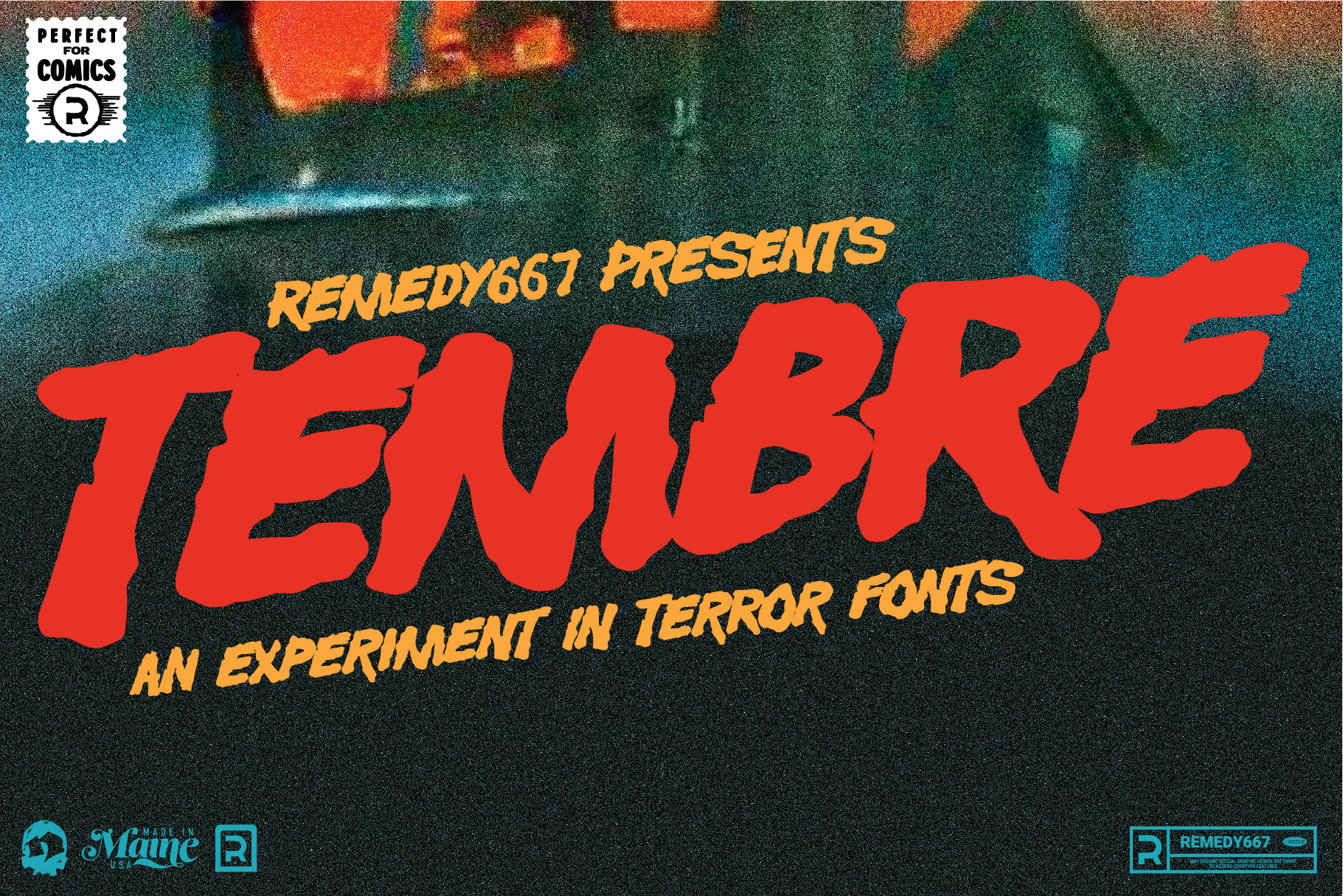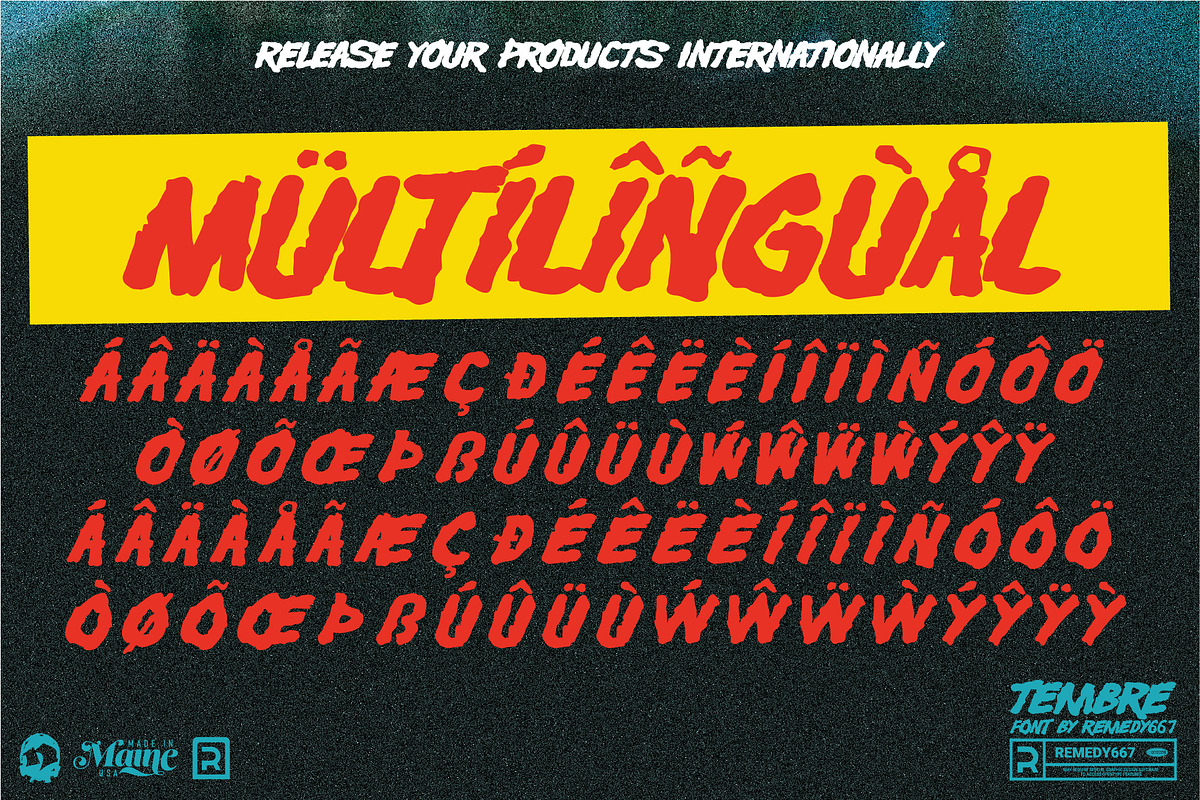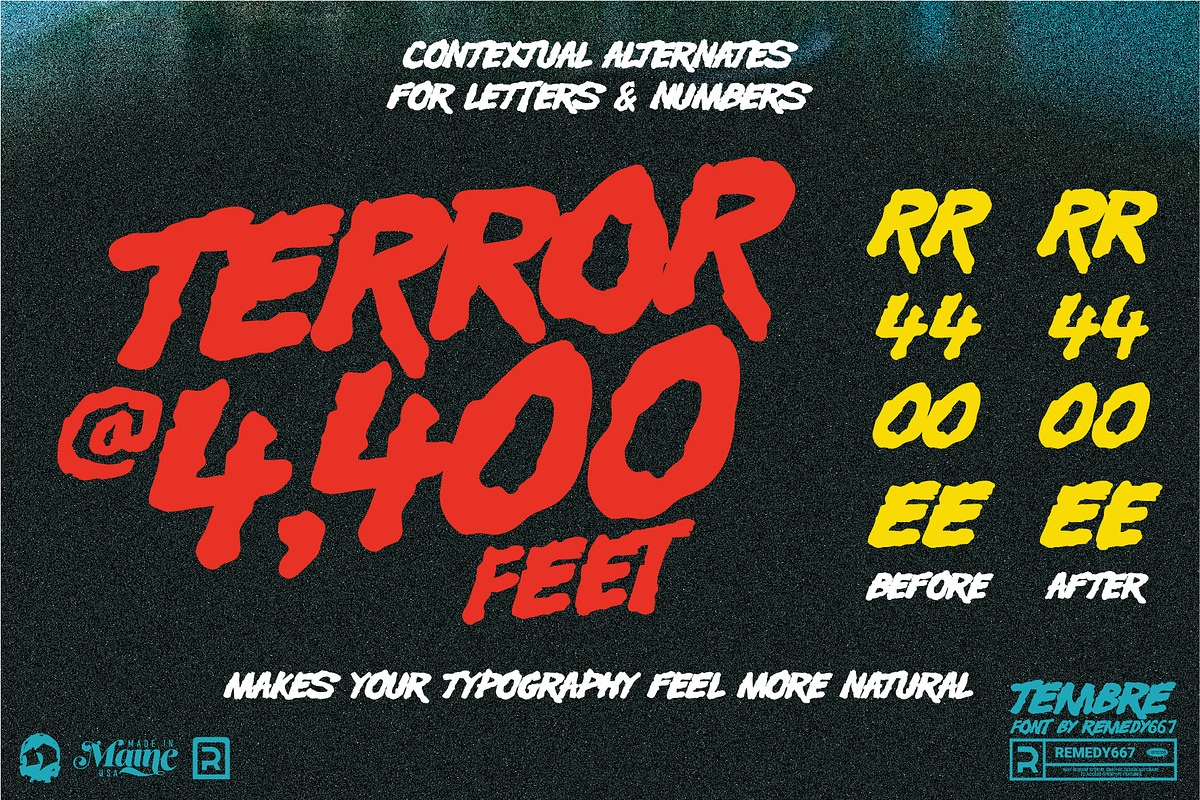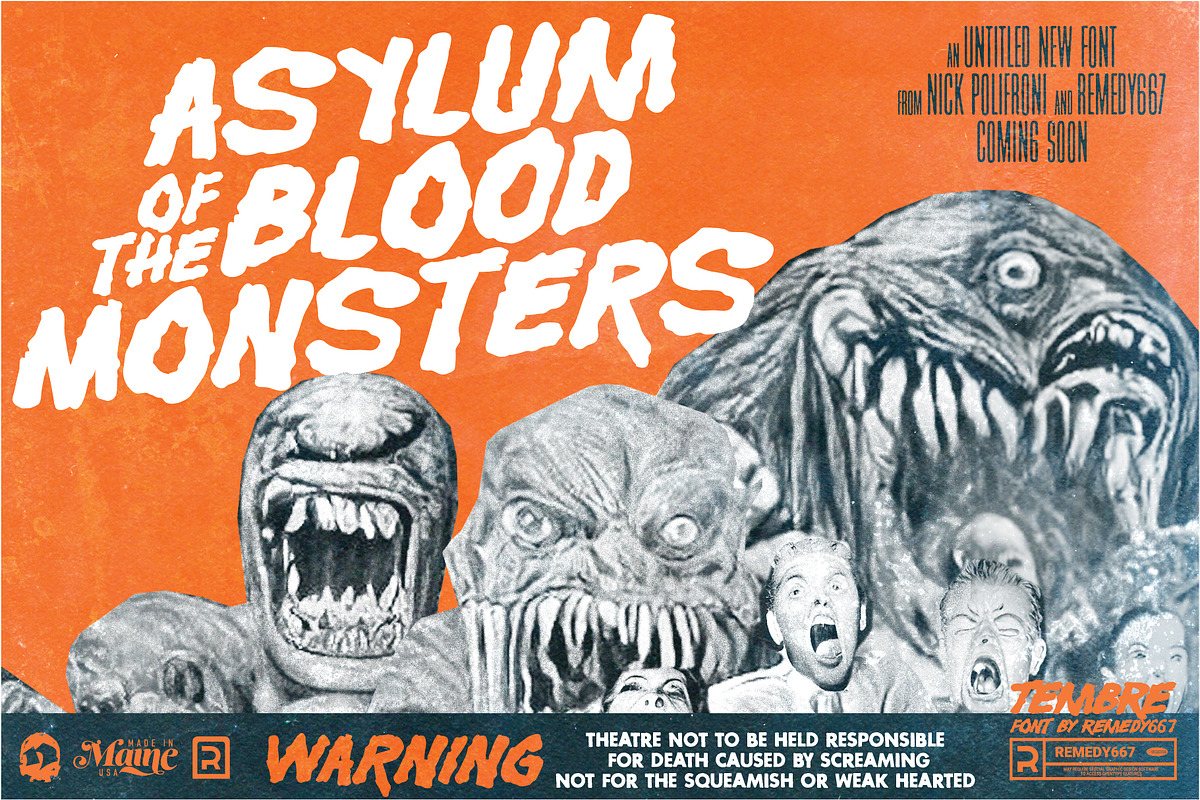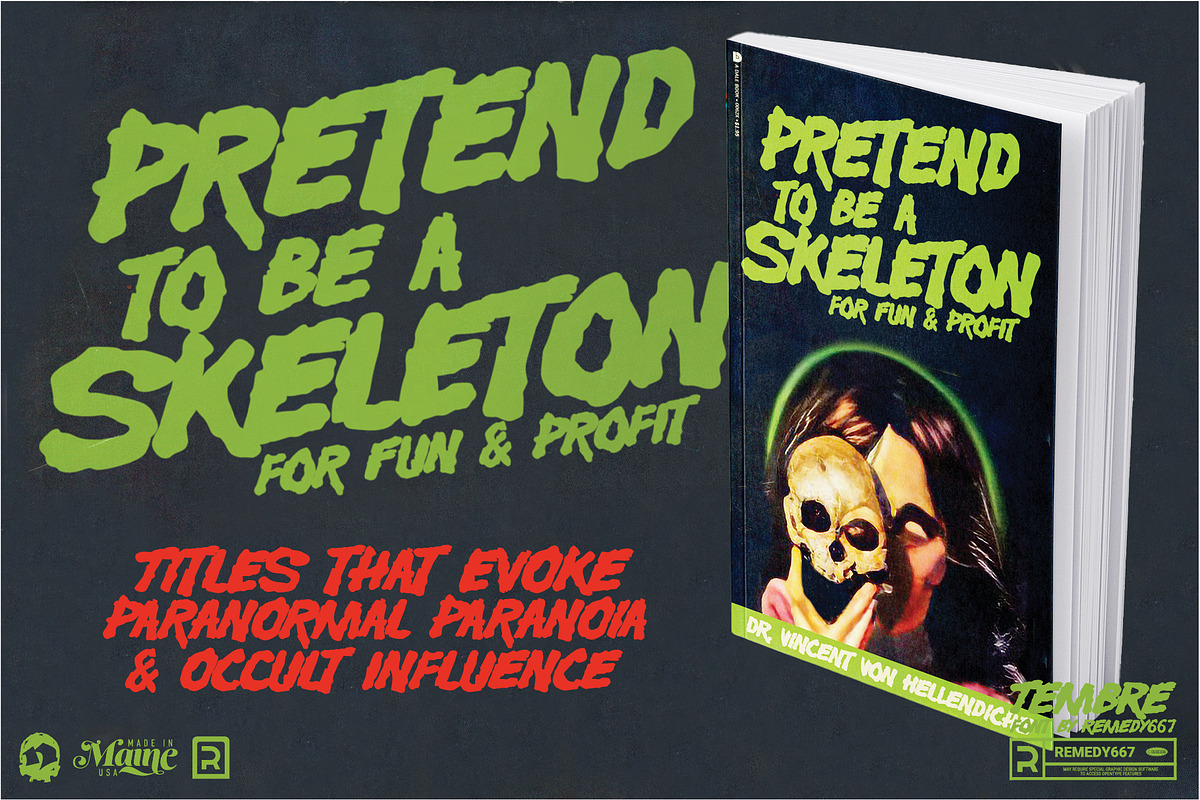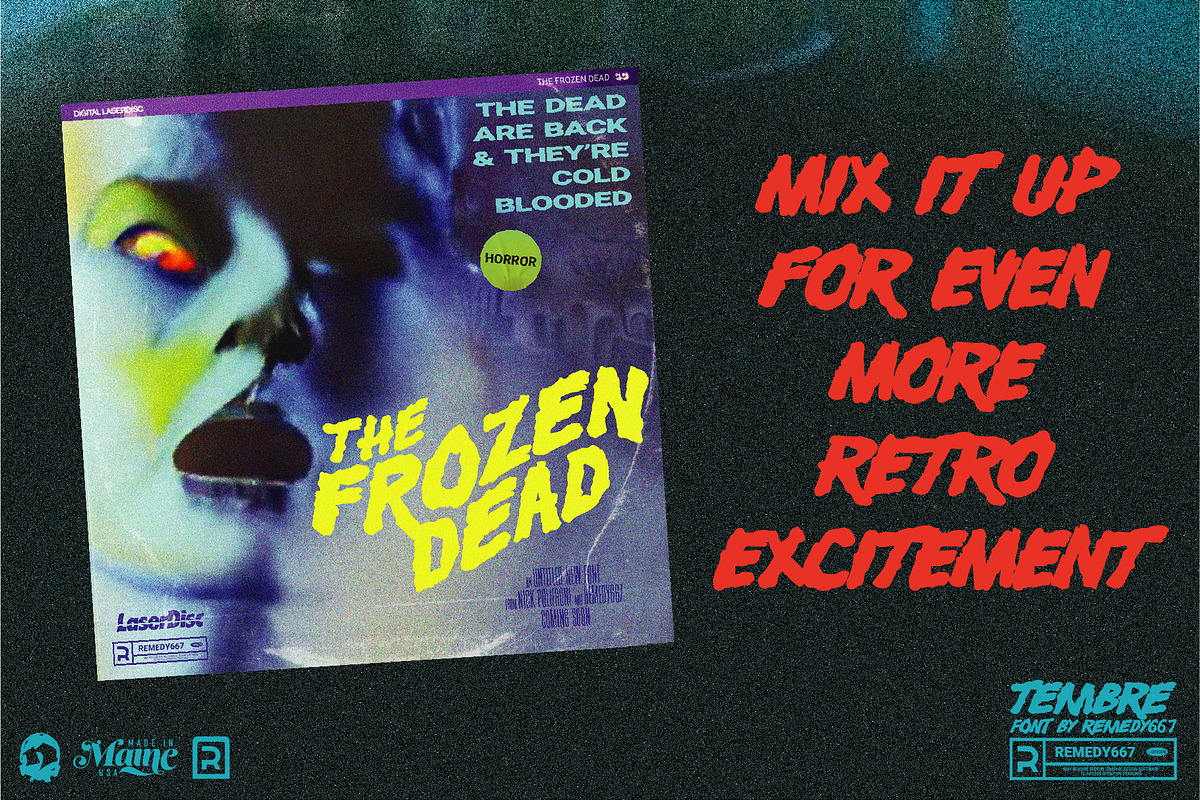
Tembre - Retro Horror Font
No other font has the perfect look and feel for horror titles like Tembre. We all know the feeling of reading a horror title in a creepy font and it just sends shivers down your spine. Tembre will give anything you type a classic monster movie feel and make your titles stand out.
Featuring alternate numerals for chapters, tracklists, and more… this typeface is created for films, books, and other media. Don’t wait another minute to get your copy of Tembre and impress your audience this Halloween with a spooky title design.
- Alternate numbers, just in case you need them
- The ultimate font for horror stories, books, and movies. Perfect for titles and the tagline